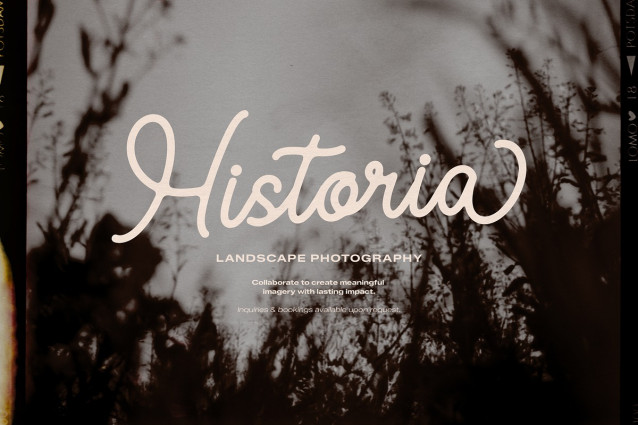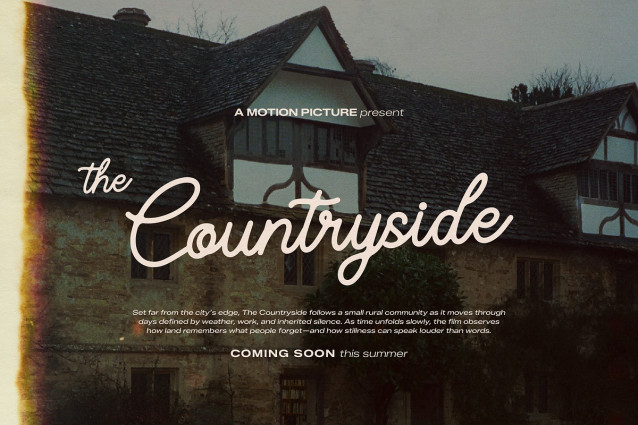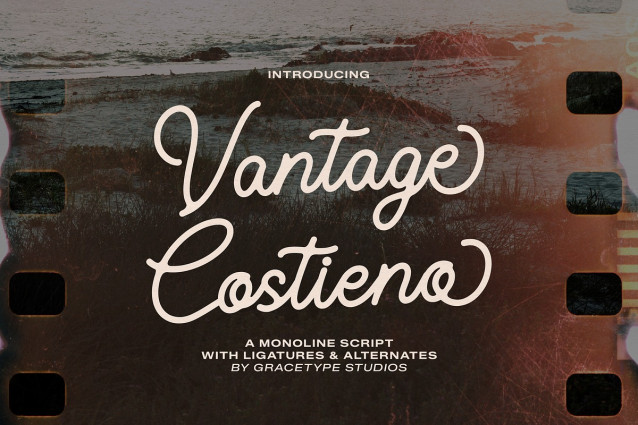
Vantage Costieno Script Font
Vantage Costieno Script Font | Monoline Script, from Gracetypestudio, suitable for any projects such as: logos, branding projects, homeware designs, product packaging, mugs, quotes, posters, shopping bags, t-shirts, book covers, name card, invitation cards, greeting cards, label, photography, watermark, special events, and all your other lovely projects that need a Script taste.